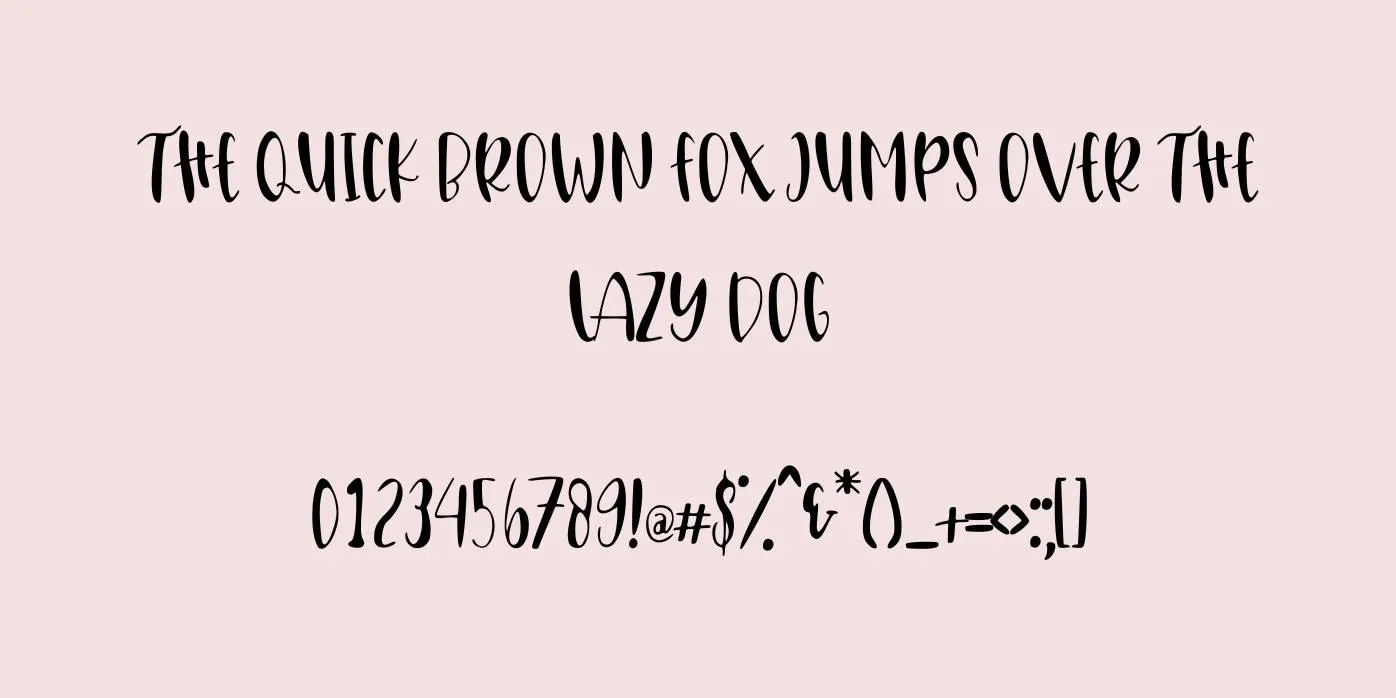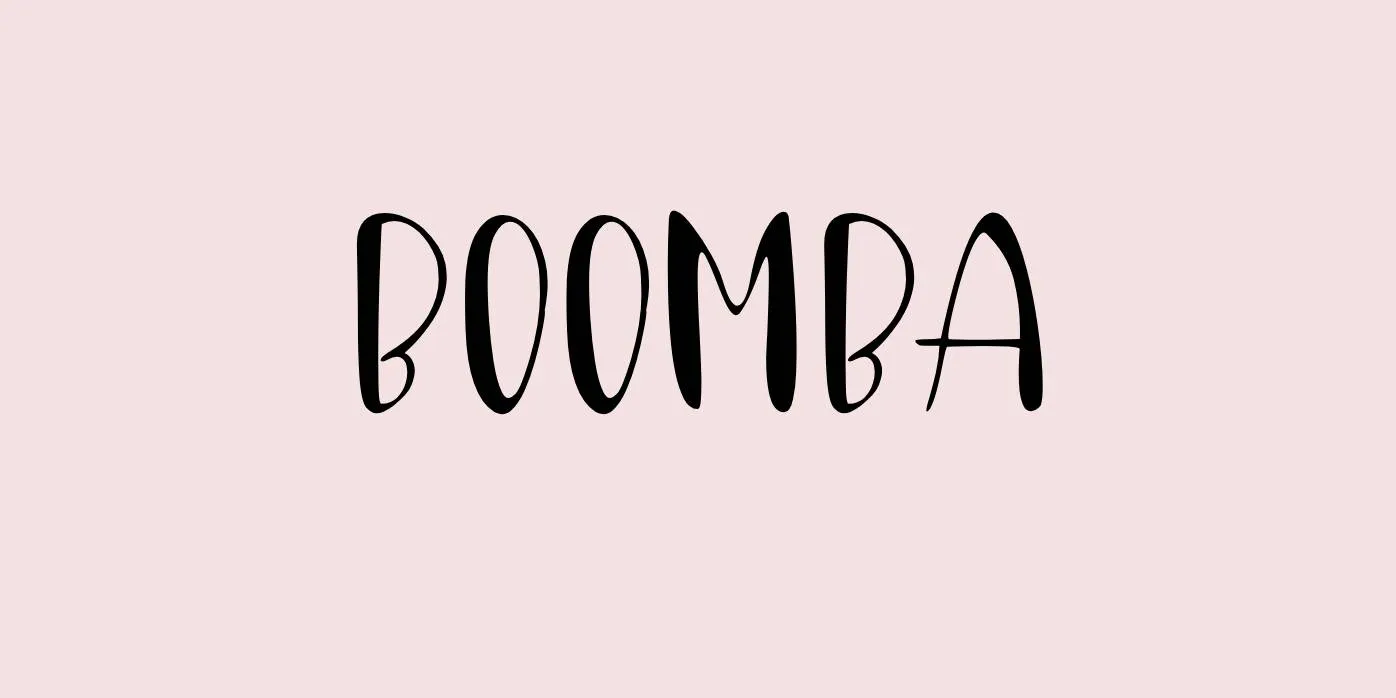
Boomba Font
Boomba Font is a very interesting and fun-loving typeface. This Font is designed by Arief Tri Sulistiyono and manufactured by Supersemar Letter. It has many different features which can be used to design different projects. This elegant typeface contains 264 characters, 229 glyphs, and 2048 units per Em.
It supports Unicode 2.0 and BMP only. Languages supported by this font are Latin, Greek, and Symbol. This handwritten font is very useful for all types of projects related to kids and other topics. It can be read easily because of its clear look.
It has characters, symbols, numbers, small letters, capital letters, punctuations, and special characters. It is a very friendly handwritten font. You can make wedding invitations or other event invitations by using this font. for attractive signatures, you can also use it.
To make fun-loving projects like cartoons logos and titles you can also use this font. This font can be used to design all kids-related items like dairies, story books, lunch box printing, and all school projects for kids. It can also be used to design labels, stickers, and headlines for different brands. It is a good font for both print and digital media.
Kurdish, Kurdish (Kurmanji), Tahitian, Komi-Permyak, and Malagasy. FAQs! What is Boomba Font? It is a very playful and attractive handwritten font.
You can make so many different amazing designs by using this font. Can I use Boomba Font in branding? Yes, this font can be used for making different projects like designing kids-related items, logos, branding, and much more. What is an online generator tool for Boomba Font?
To check or change your simple text into a stylish look without downloading the font you can use this tool online without downloading the font. Is Boomba Font easy to read? It is a very amazing handwritten font and it has clear characters which can be read easily.